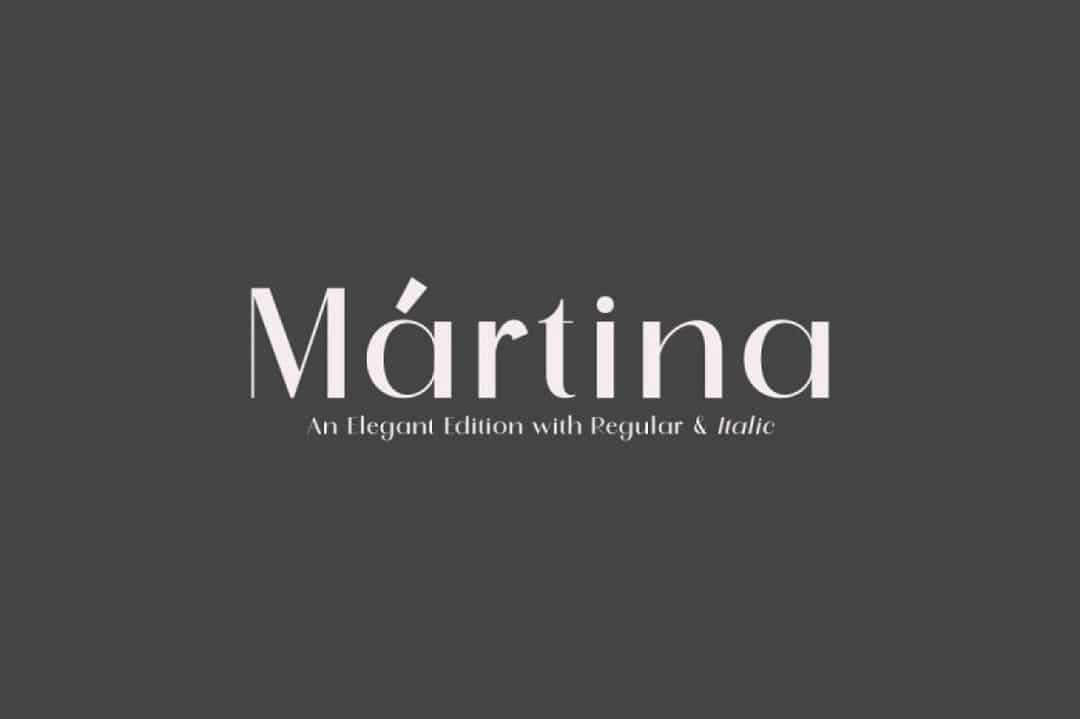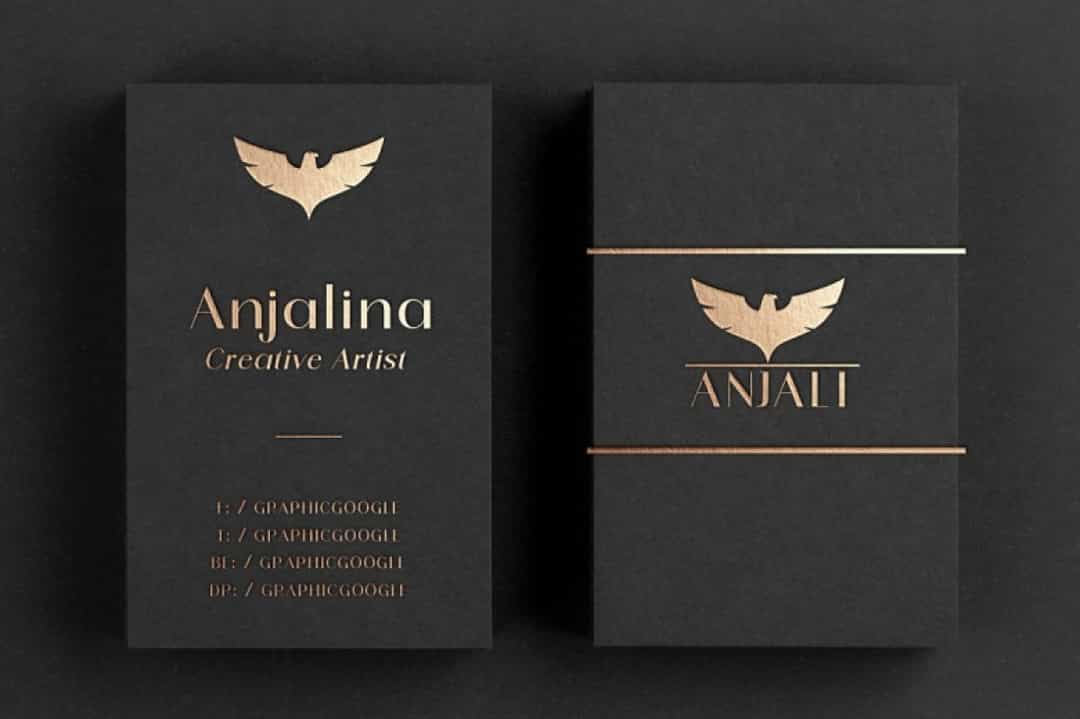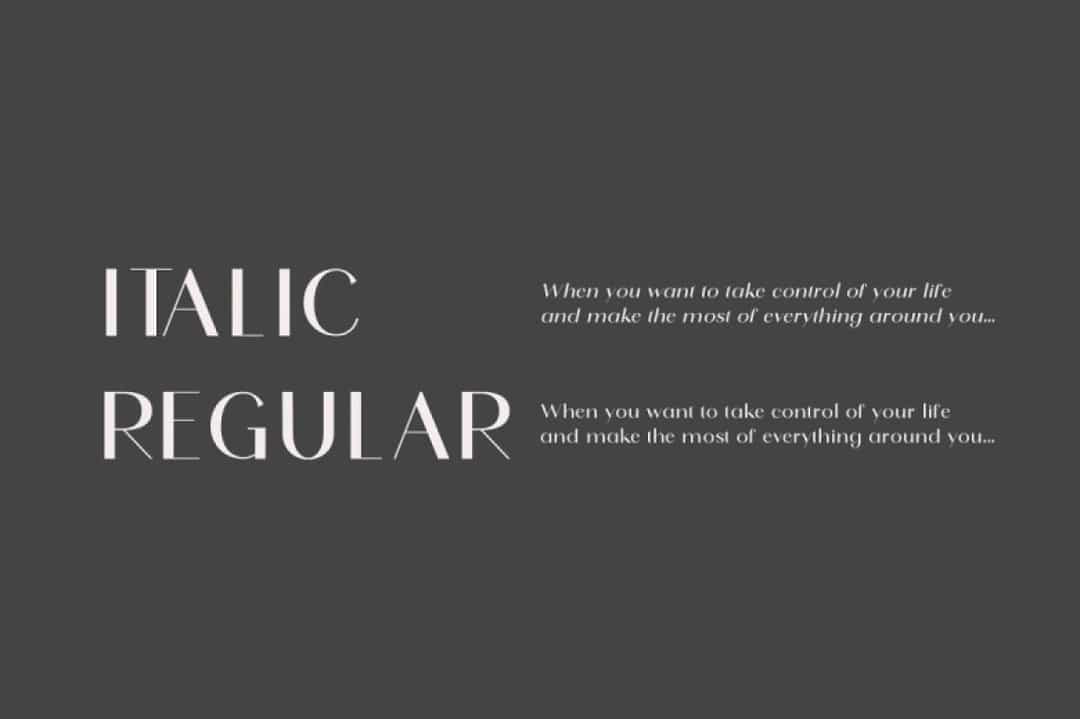
Martina is a minimalist traditional sans serif font with personality. Perfect for headers as well as body copy, Martina comes in both Regular and Italic versions that contain all Latin characters (including accents) special characters numbers and punctuation marks.